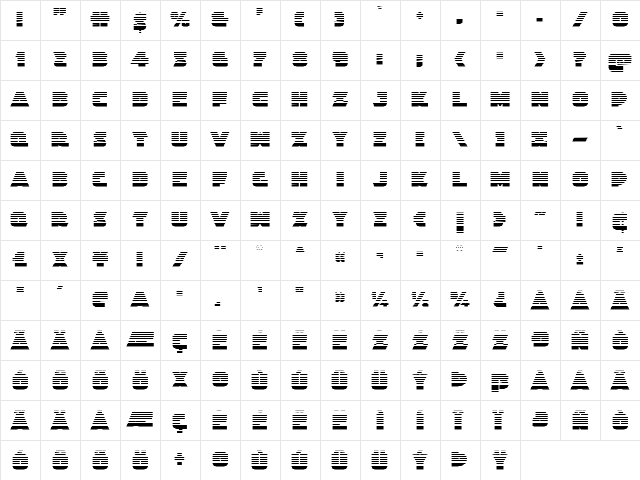
Jedi Special Forces Gradient Regular
Design Context for Jedi Special Forces Gradient Typeface
Jedi Special Forces Gradient has the bold swagger of sports branding: strong, assertive letterforms designed to dominate headlines and jerseys alike.
A natural choice for gym brands, fantasy sports, jersey lettering, and action-driven headlines.
Pro Tip: Use Jedi Special Forces Gradient in all-caps headlines where its athletic energy can fully express itself. Pair with a solid, simple sans for supporting text.